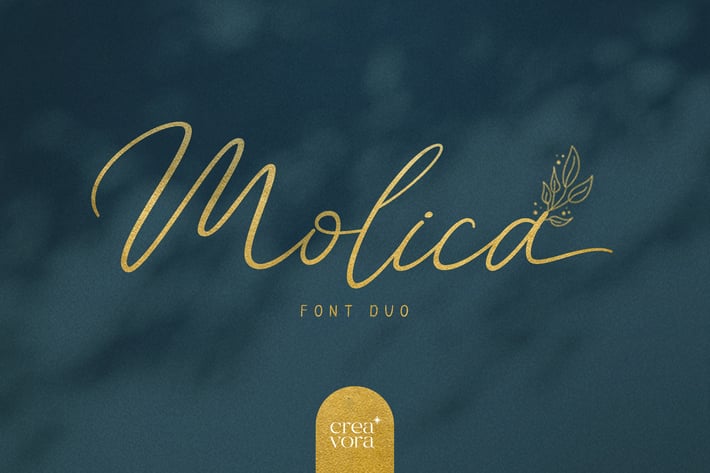
Molica - Font Duo
Molica - Font Duo.
Molica is a font duo that combines a display font and a handwritten font. This font is perfect for invitations, logo design, quotes, and content creation.
Molica displays a playful and informal display font with all caps.
Molica script is a stylish, handwritten font that is suitable as an alternative font that is combined with other fonts with available lowercase and uppercase letters.
- Uppercase Characters
- Lowercase Characters
- Punctuation, Numerical, Ligatures
- Multilingual support for various languages including: French, German, Spanish, Portuguese, Italian, Dutch, Finnish, Swedish, and more.